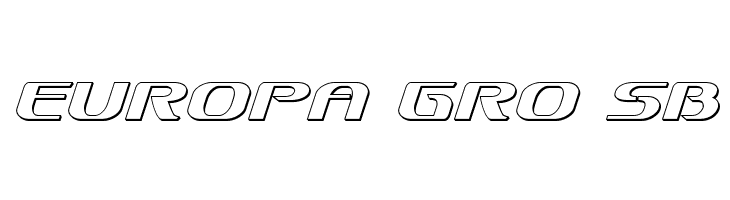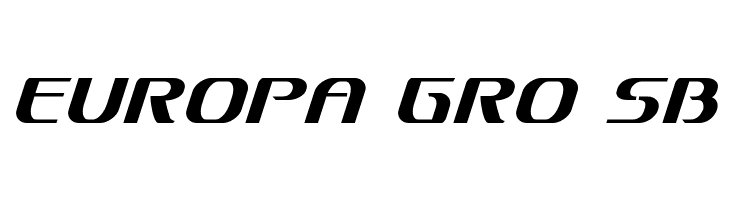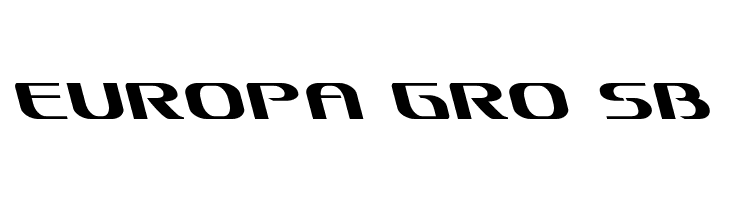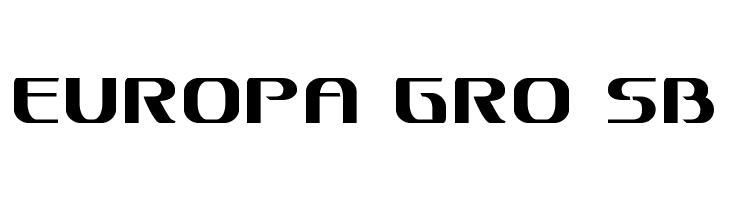
A graceful and flowing script font with elegant, connected characters.
A bold, angular font with sharp edges and a dynamic style.
A modern, ultra-expanded font with a geometric and clean design.
A futuristic, geometric font with bold, angular letterforms and rounded edges.
A bold, playful font with wavy, lava lamp-inspired characters.
A bold, hand-drawn font with playful and irregular strokes.
A geometric, futuristic font with a maze-like, angular design.
A playful, bold, and hand-drawn font perfect for creative and lively designs.
A bold, playful, hand-drawn font with outlined characters.
A playful, hand-drawn font with bold, uneven strokes and a whimsical style.
A bold, retro-inspired font with a striped pattern and geometric structure.
A decorative and artistic font with intricate, whimsical letterforms.
A playful, hand-drawn font with a bold, sketch-like texture.
A playful, handwritten font with dynamic strokes and a casual style.
A tall, narrow, hand-drawn font with a playful, artistic style.
A distressed, vintage font with a hand-crafted, organic feel.
A bold, textured decorative font with a grunge effect, perfect for modern designs.
A bold, playful handwritten font with rounded, uneven strokes.
A playful, rounded font with a hand-drawn, whimsical style.
A bold, decorative font with intricate floral patterns in each character.
A bold, dynamic font with sharp, angular edges and a tribal-inspired style.
A bold, distressed font with an alien-like, textured appearance.
A whimsical, hand-drawn font with tall, narrow letterforms and uneven strokes.
A distressed, vintage typewriter-style font with bold characters enclosed in squares.
A bold, decorative font with atomic motifs for a futuristic look.
A playful, hand-drawn font with bold outlines and a whimsical style.